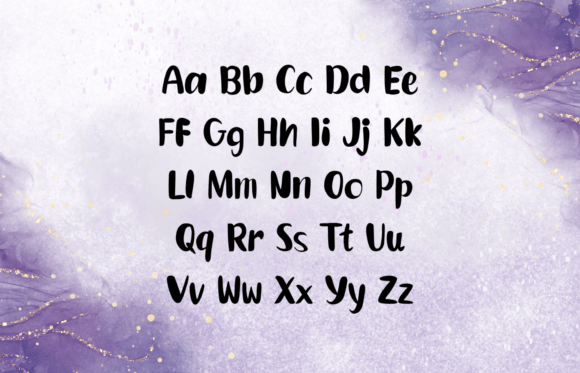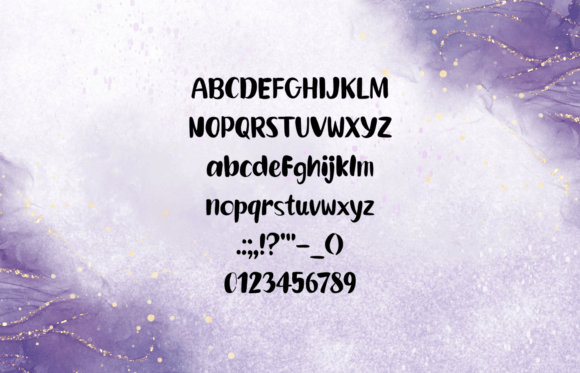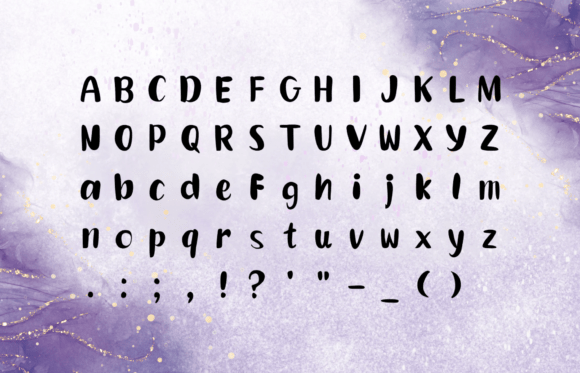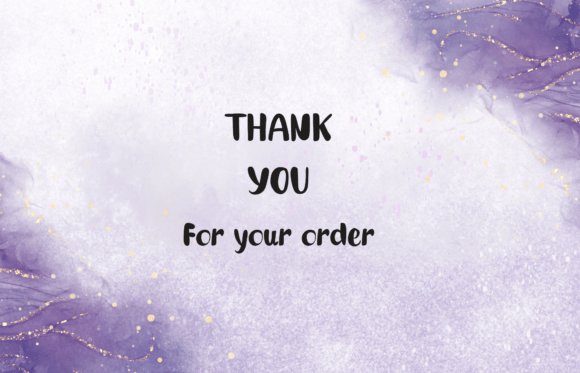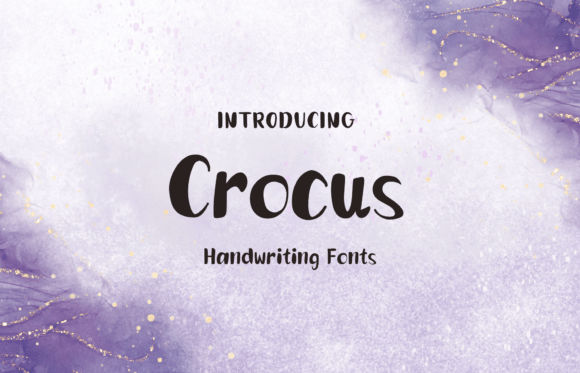
Crocus Font: The Sweet and Friendly Handwritten Display Font
Are you looking for a font that can add a touch of sweetness and friendliness to your designs? Look no further than the Crocus font! This beautiful handwritten display font is perfect for a variety of projects, from crafts and digital design to presentations, wedding invitations, and more.
What is Crocus Font?
Crocus font is a sweet and friendly handwritten display font that is sure to bring a smile to anyone’s face. Its cute and fun design makes it ideal for projects that require a playful touch. Whether you’re a designer, crafter, or teacher, this font is sure to become a favorite in your collection.
Characteristics of Crocus Font
So, what makes Crocus font so special? Here are just a few of its key characteristics:
• Handwritten design: Crocus font has a beautiful, handwritten design that gives it a personal and friendly feel.
• Cute and fun: This font is perfect for projects that require a playful touch, such as crafts, digital design, and children’s materials.
• Display font: Crocus font is a display font, making it perfect for use in titles, headings, and other prominent text.
• Versatile: This font can be used in a wide range of projects, from digital design to print materials.
Uses for Crocus Font
So, what can you use Crocus font for? The possibilities are endless! Here are just a few ideas to get you started:
• Crafts: Crocus font is perfect for use in crafts, such as scrapbooking, card making, and other paper crafts.
• Digital design: This font can be used in digital design projects, such as social media graphics, blog posts, and website headers.
• Presentations: Add a touch of personality to your presentations with Crocus font.
• Wedding invitations: This font is perfect for use in wedding invitations, save-the-dates, and other wedding stationery.
• Cards: Use Crocus font to create cute and personalized cards for birthdays, holidays, and other special occasions.
• School projects: Teachers and students will love using Crocus font for school projects, such as posters, presentations, and worksheets.
• Comic book style: This font is perfect for use in comic book-style designs, such as graphic novels and cartoon-style illustrations.
• Game online: Use Crocus font to add a touch of personality to your online games, such as game titles and character names.
• Love shirt: Create cute and personalized t-shirts, mugs, and other gifts with Crocus font.
• Posters: This font is perfect for use in posters, such as movie posters, event posters, and advertising posters.
• Movie titles: Add a touch of glamour to your movie titles with Crocus font.
Why Choose Crocus Font?
So, why should you choose Crocus font for your next project? Here are just a few reasons:
• Unique design: Crocus font has a unique and eye-catching design that will set your project apart from the rest.
• Easy to read: This font is easy to read, making it perfect for use in a wide range of projects.
• Versatile: Crocus font can be used in a wide range of projects, from digital design to print materials.
• Fun and playful: This font is perfect for projects that require a fun and playful touch.
In conclusion, Crocus font is a sweet and friendly handwritten display font that is perfect for a wide range of projects. Its cute and fun design makes it ideal for crafts, digital design, presentations, wedding invitations, and more. With its unique design, ease of use, and versatility, Crocus font is sure to become a favorite in your collection. So why wait? Download Crocus font today and start adding a touch of sweetness and friendliness to your designs!